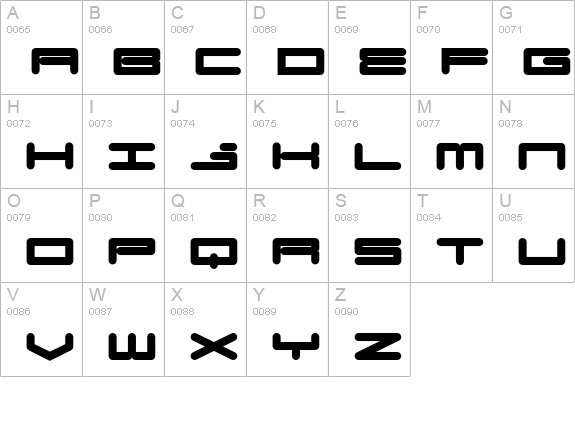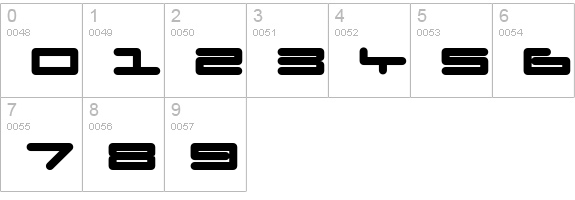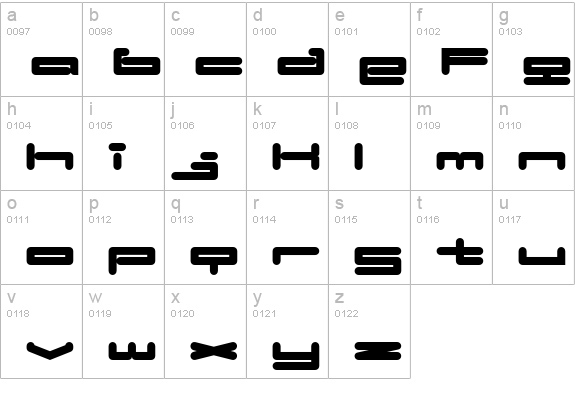
BadExcuse-Solid Font Details
Below you can preview BadExcuse-Solid in uppercase [A-Z], lowercase [a-z] and numbers [0-9]. You can also read the author's notes and license information before downloading.
Introducing BadExcuse-Solid font, a versatile and eye-catching typeface that is sure to make a statement in your design projects. This unique font features a solid and bold style, perfect for adding a touch of modernity and sophistication to your designs. With its clean lines and contemporary look, BadExcuse-Solid font is ideal for a wide range of design applications, from logos and branding to headlines and posters. Its striking appearance will captivate your audience and leave a lasting impression. Best of all, BadExcuse-Solid font is available for free download at FontsMarket.com. So go ahead and grab this stylish font today to elevate your designs and take them to the next level.